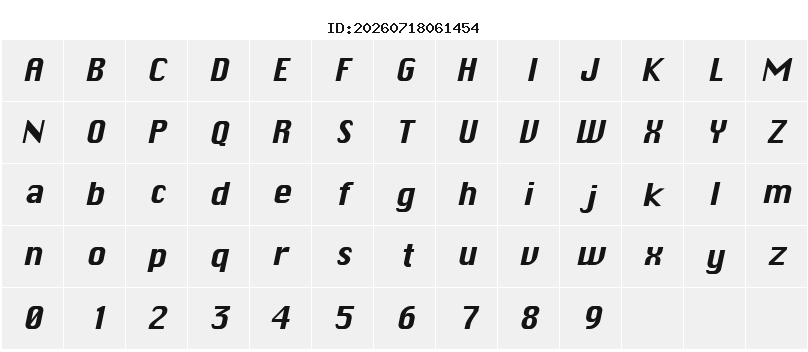
Chicane Preview
• Font Name: Chicane
• Font ID: Weatherly Systems, Inc. Chicane Italic
• Full Font Name: Chicane Italic
Chicane.ttf is a modern, elegant sans-serif font designed for ultimate readability and visual harmony. Perfect for branding, headlines, web design, and print materials.